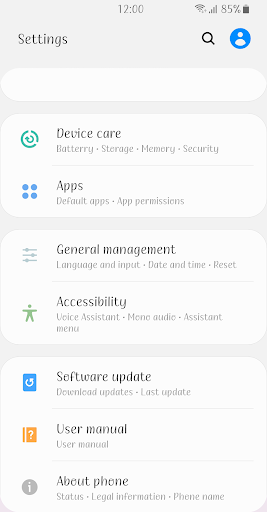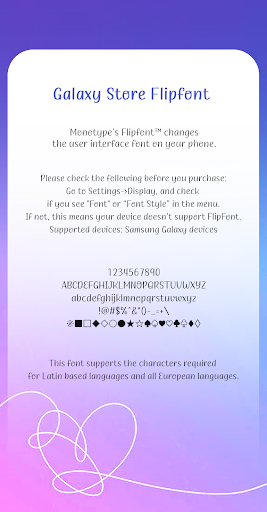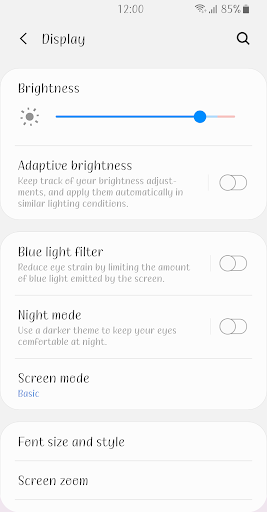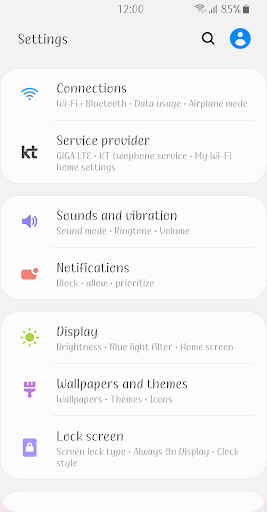
Fine Honestly
This typeface is a comfortable pen writing style font.
The difference in thickness between the horizontal and vertical strokes is clear, showing a stable posture, and the natural and comfortable movement of the strokes conveys a sense of confidence.